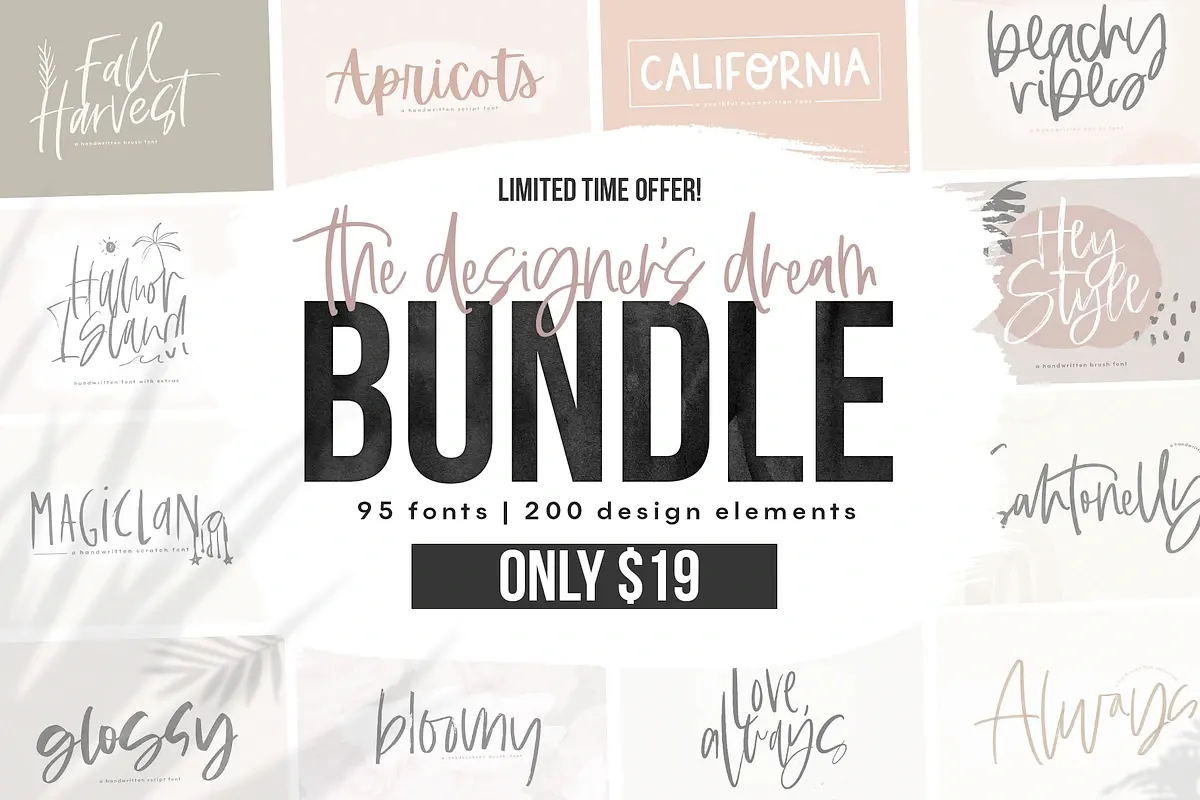
The Designer's Font BUNDLE Free Download
The Designer's Font BUNDLE Free Download is an all-in-one collection featuring a diverse range of premium typefaces tailored for creative professionals. This bundle includes everything from elegant scripts and bold displays to modern serifs, clean sans serifs, and quirky hand-drawn styles—making it the ultimate toolkit for logos, branding, social media content, packaging, web design, and more.
Each font in The Designer's Font BUNDLE Free Download is crafted with high-quality detail and versatility in mind, offering unique personality and visual impact for every kind of project. Whether you're aiming for a minimalist look or a bold, artistic statement, this bundle gives you the flexibility to explore countless design directions.